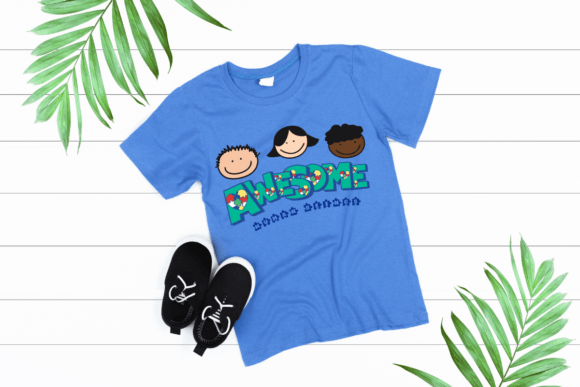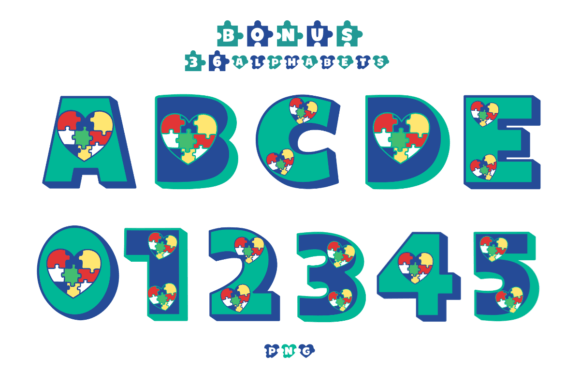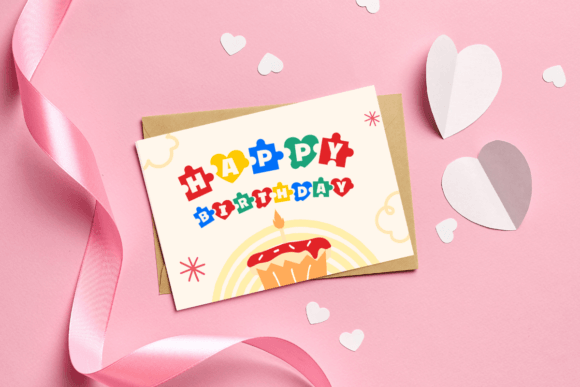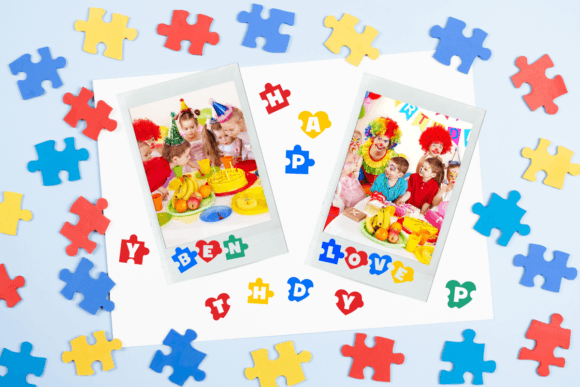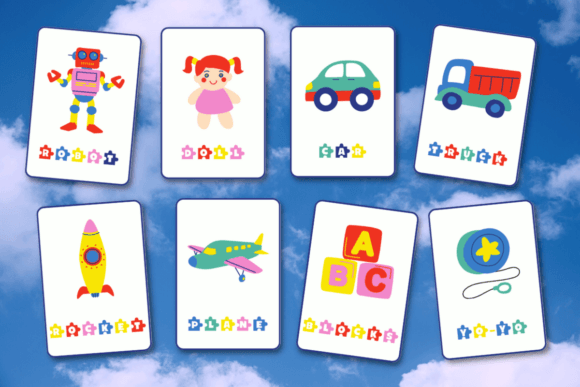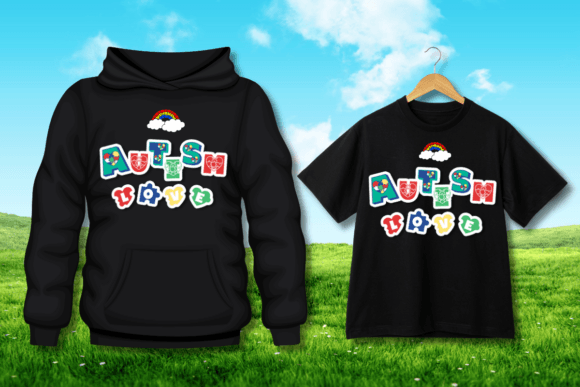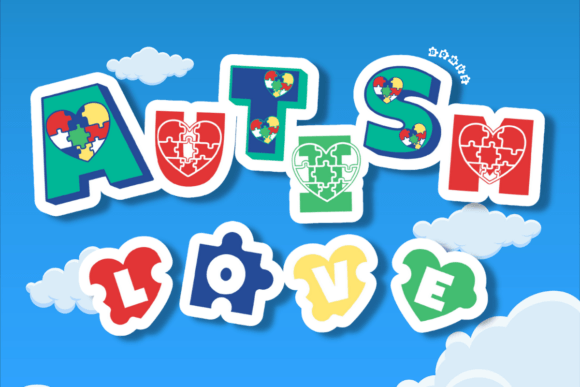
Introducing Autism Love Font: The Playful and Whimsical Display Font for Childhood Designs
Are you a designer or crafter looking for a font that captures the essence of childhood? Look no further than Autism Love Font, a playful and whimsical display font that’s perfect for children’s book covers, toy packaging, and playful designs that need a touch of youthful charm. In this article, we’ll dive into the features and benefits of Autism Love Font, and explore how it can elevate your designs to the next level.
The Inspiration Behind Autism Love Font
Autism Love Font is a unique and special font that’s inspired by the joy and innocence of childhood. Its round and bubbly letterforms are designed to evoke a sense of fun and playfulness, making it perfect for designs that require a touch of whimsy. Whether you’re creating a children’s book cover, a toy packaging design, or a playful poster, Autism Love Font is sure to bring a smile to your audience’s face.
Key Features of Autism Love Font
So, what makes Autism Love Font so special? Here are some of its key features:
- Playful and whimsical design: Autism Love Font features round and bubbly letterforms that are sure to add a touch of fun and playfulness to your designs.
- Perfect for children’s designs: With its youthful and innocent charm, Autism Love Font is perfect for children’s book covers, toy packaging, and other designs that require a playful touch.
- Easy to read: Despite its playful design, Autism Love Font is easy to read, making it perfect for designs that require a clear and concise message.
- Versatile: Autism Love Font can be used for a wide range of designs, from children’s books to posters, packaging, and more.
Benefits of Using Autism Love Font
So, why should you choose Autism Love Font for your designs? Here are some of the benefits of using this unique and playful font:
- Adds a touch of whimsy: Autism Love Font adds a touch of whimsy and playfulness to your designs, making them more engaging and fun.
- Creates a sense of nostalgia: Autism Love Font’s playful design is sure to evoke a sense of nostalgia and childhood wonder, making it perfect for designs that require a retro or vintage feel.
- Perfect for branding: With its unique and playful design, Autism Love Font is perfect for branding and can help you establish a strong and recognizable identity.
Examples of Autism Love Font in Action
So, how can you use Autism Love Font in your designs? Here are some examples of how this playful font can be used:
- Children’s book covers: Autism Love Font is perfect for children’s book covers, adding a touch of whimsy and playfulness to your design.
- Toy packaging: With its playful and youthful design, Autism Love Font is perfect for toy packaging, making your product stand out on store shelves.
- Posters and flyers: Autism Love Font can be used to create fun and playful posters and flyers that are sure to grab attention.
- Branding and logos: Autism Love Font’s unique and playful design makes it perfect for branding and logos, helping you establish a strong and recognizable identity.
In conclusion, Autism Love Font is a playful and whimsical display font that’s perfect for designers and crafters looking to add a touch of childhood charm to their designs. With its round and bubbly letterforms, easy readability, and versatility, Autism Love Font is sure to elevate your designs to the next level. Whether you’re creating a children’s book cover, toy packaging, or playful poster, Autism Love Font is the perfect choice.